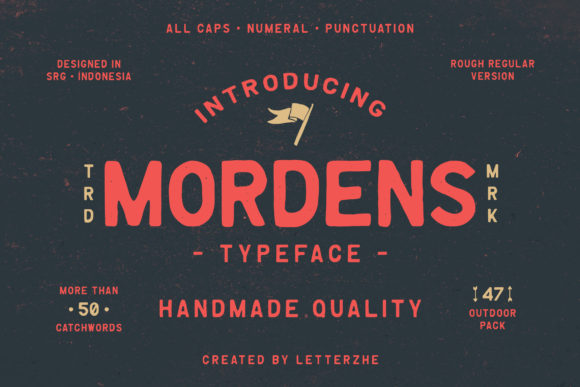
Mordens Font: A Vintage Typeface for Timeless Designs
In the world of typography, a font can make all the difference in creating a lasting impression. For designers, typographers, and branding enthusiasts, finding the perfect typeface can be a daunting task. However, if you’re looking for a vintage font that exudes elegance and sophistication, look no further than Mordens Font. In this article, we’ll delve into the world of Mordens Font, exploring its features, uses, and benefits.
What is Mordens Font?
Mordens Font is a vintage typeface designed for typography, lettering, branding, logotype, and more. This beautiful font is perfect for creating timeless designs that evoke a sense of nostalgia and classic charm. With its unique character set and elegant lines, Mordens Font is sure to elevate your designs to the next level.
Key Features of Mordens Font
So, what makes Mordens Font so special? Here are some of its key features:
- Vintage style: Mordens Font boasts a classic, vintage style that’s perfect for creating designs that stand the test of time.
- Complete character set: This font includes a complete character set, ensuring that you have all the letters, numbers, and symbols you need to create stunning designs.
- Symbol and language support: Mordens Font comes with a range of symbols and languages, making it easy to create designs that cater to diverse audiences.
- Clip art font version: In addition to the standard font, Mordens Font also includes an extra clip art font version, perfect for creating custom illustrations and graphics.
- Bonus vector pack: As a bonus, Mordens Font comes with a fun outdoor vector pack in EPS format, providing you with even more creative possibilities.
Uses of Mordens Font
Mordens Font is an incredibly versatile typeface, suitable for a wide range of design applications. Here are some of the ways you can use Mordens Font:
- Typography: Use Mordens Font to create stunning typographic designs, from posters and flyers to brochures and magazines.
- Branding and logotype: Create memorable brand identities and logos with Mordens Font, perfect for businesses looking to establish a classic, timeless look.
- Lettering and illustration: Mordens Font is ideal for creating custom lettering and illustrations, from hand-drawn quotes to intricate illustrations.
- Packaging and advertising: Use Mordens Font to create eye-catching packaging and advertising designs that stand out from the crowd.
Benefits of Using Mordens Font
So, why choose Mordens Font for your design projects? Here are some of the benefits of using this amazing typeface:
- Unique and distinctive: Mordens Font offers a unique and distinctive style that’s sure to set your designs apart from the competition.
- Elegant and sophisticated: This font exudes elegance and sophistication, making it perfect for high-end brands and luxury designs.
- Flexible and versatile: Mordens Font is incredibly versatile, suitable for a wide range of design applications and projects.
- Easy to use: With its complete character set and intuitive design, Mordens Font is easy to use, even for designers who are new to typography.
Tips for Using Mordens Font
To get the most out of Mordens Font, here are some tips to keep in mind:
- Experiment with different sizes and colors: Don’t be afraid to experiment with different sizes and colors to find the perfect combination for your design.
- Use it with contrasting fonts: Pair Mordens Font with contrasting fonts to create visual interest and add depth to your designs.
- Pay attention to spacing and kerning: Make sure to pay attention to spacing and kerning to ensure that your text is easy to read and visually appealing.
- Take advantage of the bonus vector pack: Don’t miss out on the bonus vector pack, which offers a range of fun and creative illustrations and graphics.
In conclusion, Mordens Font is an exceptional vintage typeface that’s perfect for designers, typographers, and branding enthusiasts. With its unique character set, elegant lines, and versatile design, Mordens Font is sure to elevate your designs to the next level. Whether you’re creating typographic designs, branding and logotype, or illustrations and packaging, Mordens Font is an excellent choice. So why wait? Download Mordens Font today and start creating timeless designs that will leave a lasting impression.